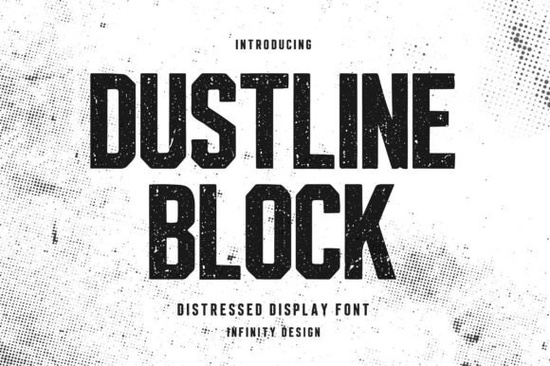
Dustline Block Font is a standout choice for anyone looking to add a rugged, vintage feel to their design projects. This bold display font features a distressed texture that gives it a weathered, industrial look, making it ideal for logos, t-shirts, posters, and more. Whether you're a designer, crafter, or small business owner, Dustline Block brings a strong visual presence that can elevate your creative work without needing much effort.
The font’s block-style characters are easy to read while still maintaining a powerful aesthetic. Its vintage appeal makes it perfect for branding that wants to convey strength, authenticity, and a touch of nostalgia. You’ll find it especially useful for sports-related designs, eye-catching headlines, and any project where a bold, distressed look is desired.
Why Choose Dustline Block Font?
If you’re working on a project that needs a unique, eye-catching typeface, Dustline Block offers a distinctive alternative to standard fonts. Its combination of boldness and texture sets it apart from other display fonts. Unlike smoother, modern styles, this font adds a sense of history and character that can make your designs stand out in a crowded market.
One of the key advantages of Dustline Block is its versatility. It works well in both digital and print formats, making it a valuable addition to any designer’s toolkit. Whether you're creating a logo for a new business or designing a custom shirt for a print-on-demand store, this font provides a consistent and impactful look across different mediums.
How to Use Dustline Block in Your Projects
For best results, pair it with simpler fonts to balance the design. A clean sans-serif or serif font can complement the boldness of Dustline Block without overwhelming it. This approach helps maintain readability while still allowing the distressed style to take center stage.
Remember, the goal is to create designs that not only look good but also communicate the right message. Dustline Block helps achieve that by adding a strong, vintage-inspired presence that resonates with a wide audience.
Take a moment to explore how this font can fit into your workflow. Try using it in different contexts and see how it transforms your projects. With its bold style and versatile application, Dustline Block is a great asset for any creative professional.